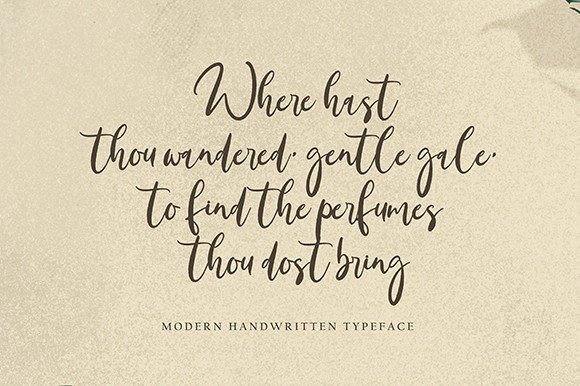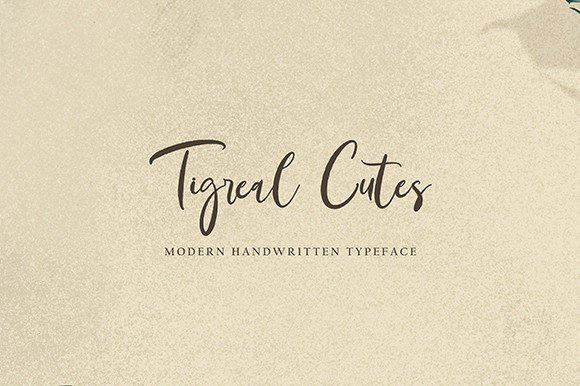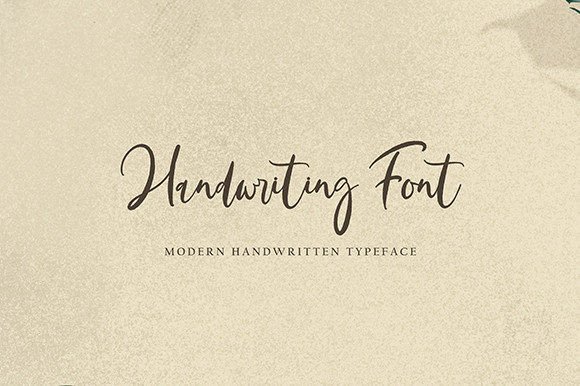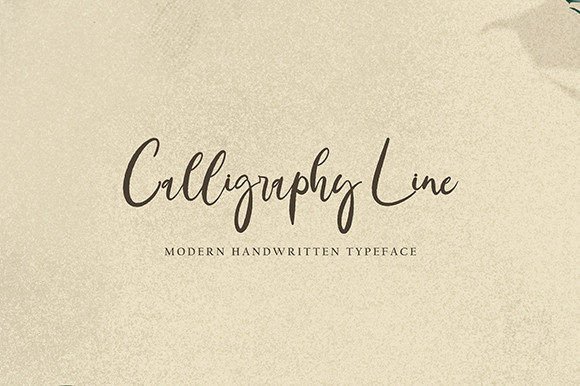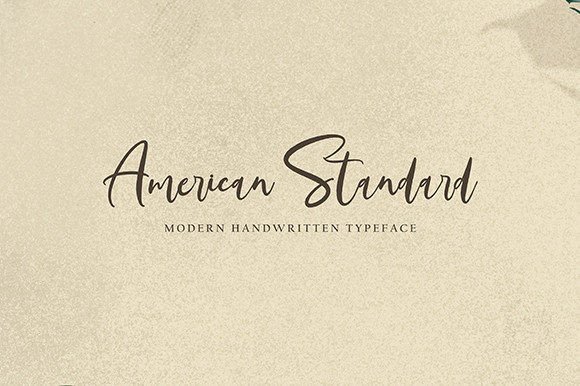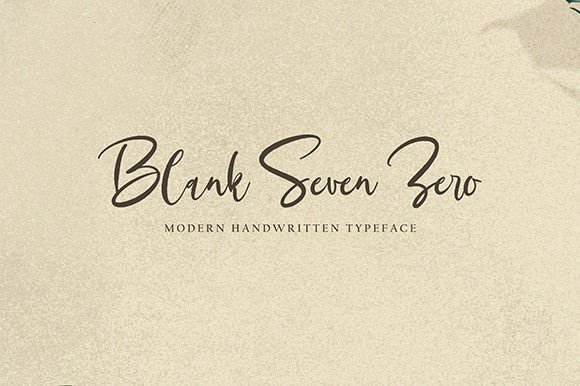
Introduction to Rose Houter Font
There’s nothing quite like the thrill of brainstorming a new design concept. The spark of creativity, the rush of ideas, and the excitement of bringing it all to life. For designers, this moment is what makes it all worth it. And sometimes, the right font can make all the difference. That’s where Rose Houter Font comes in – a beautiful, elegant script that adds a touch of whimsy and sophistication to any design project.
Whether you’re working on a wedding invitation, a quote, or a logo, Rose Houter Font is the perfect addition to your design resource. Its charming, handwritten style is sure to captivate your audience and leave a lasting impression. And the best part? It’s available for free download, making it an accessible and high-quality option for designers of all levels.
Key Features of Rose Houter Font
- High-quality design resource with a transparent background, ideal for creative projects requiring a delicate touch.
- Unique characteristics: elegant, cursive script with a touch of whimsy, perfect for adding a personal touch to invitations, quotes, and other creative projects.
- Designed to be versatile and adaptable, making it suitable for a wide range of design projects, from wedding invitations to social media graphics.
Honest Review: Rose Houter Font
As a designer, I’ve had the pleasure of working with numerous fonts, and I must say that the Rose Houter Font has been a delightful addition to my design resources. With a free download available, I was eager to see how it would perform in my creative project.
One of the standout features of the Rose Houter Font is its unique design aesthetic. The high-quality typography has a distinct charm that sets it apart from other fonts in its class. I particularly appreciate the transparent background, which allows for a seamless integration with my design elements.
- ✨ Unique and stylish design aesthetic
- ✨ High-quality typography that’s perfect for creative projects
However, I do have some reservations:
- ⚠️ Limited font sizes and weights may not be suitable for all projects
- ⚠️ Some users may find the font’s design too ornate for certain applications
Overall, I’m thoroughly impressed with the Rose Houter Font. Its distinctive design and high-quality typography make it a valuable addition to any designer’s toolkit. While it may have some limitations, I believe it’s a great choice for creative projects where a unique aesthetic is a must.
How to Use Rose Houter Font
The Rose Houter Font is a high-quality design resource that offers a unique and elegant style perfect for various creative projects. With a transparent background, this font is ideal for adding a touch of sophistication to your designs.
Tips for Getting the Most Out of the Rose Houter Font
For the best results, use the Rose Houter Font in conjunction with other high-quality design resources. Experiment with different font sizes and combinations to create unique and eye-catching designs.
The Rose Houter Font is perfect for various creative projects, including:
- Business cards and branding materials
Alternatives to Rose Houter Font
The Great Vibes Font is a high-quality script font that’s perfect for creative projects requiring a touch of elegance. It’s ideal for designing invitations, quotes, or any other design resource where a beautiful handwritten font is needed.
Compared to Rose Houter Font, Great Vibes Font has a more refined and sophisticated look, making it suitable for a wider range of applications. However, it lacks the unique, quirky charm of Rose Houter Font.
The Alex Brush Font is a beautifully designed script font that’s perfect for designers looking for a high-quality, elegant font. It’s ideal for creating invitations, logos, or any other design resource where a beautiful, handwritten font is needed.
Compared to Rose Houter Font, Alex Brush Font has a more classic and timeless look, making it suitable for a wider range of applications. However, it lacks the unique, quirky charm of Rose Houter Font.